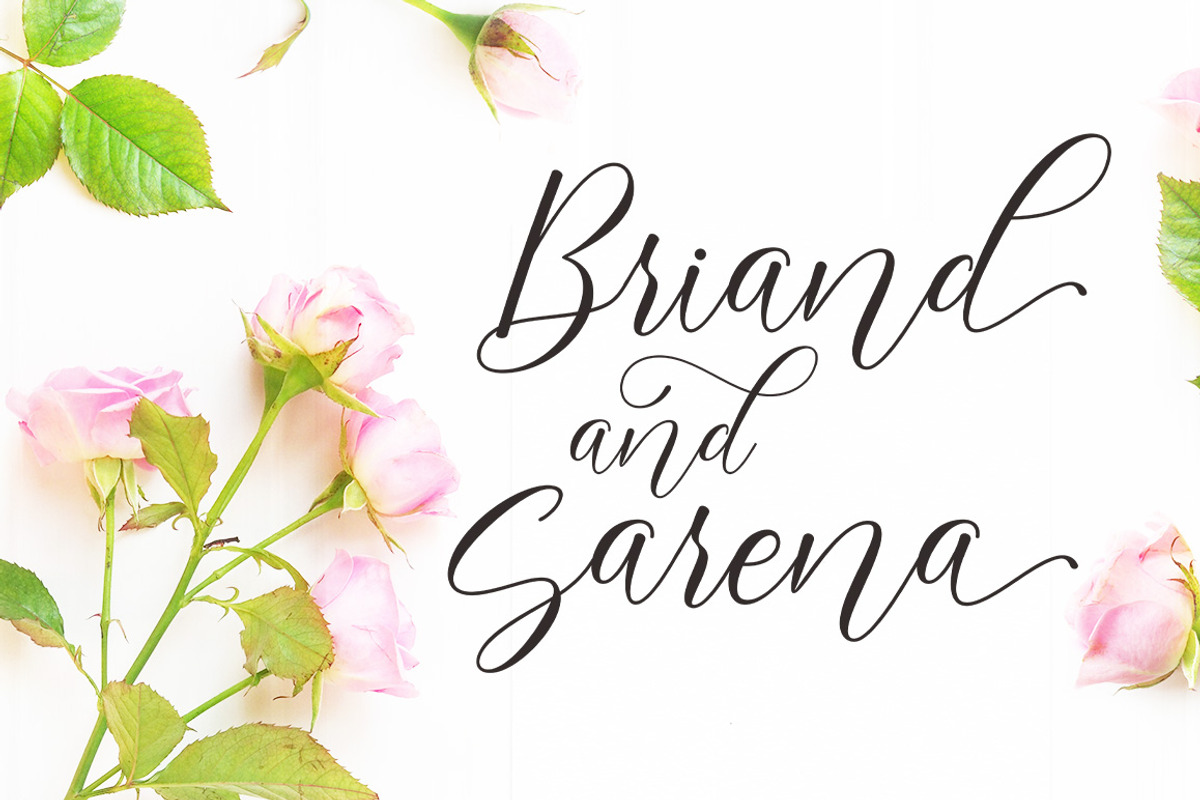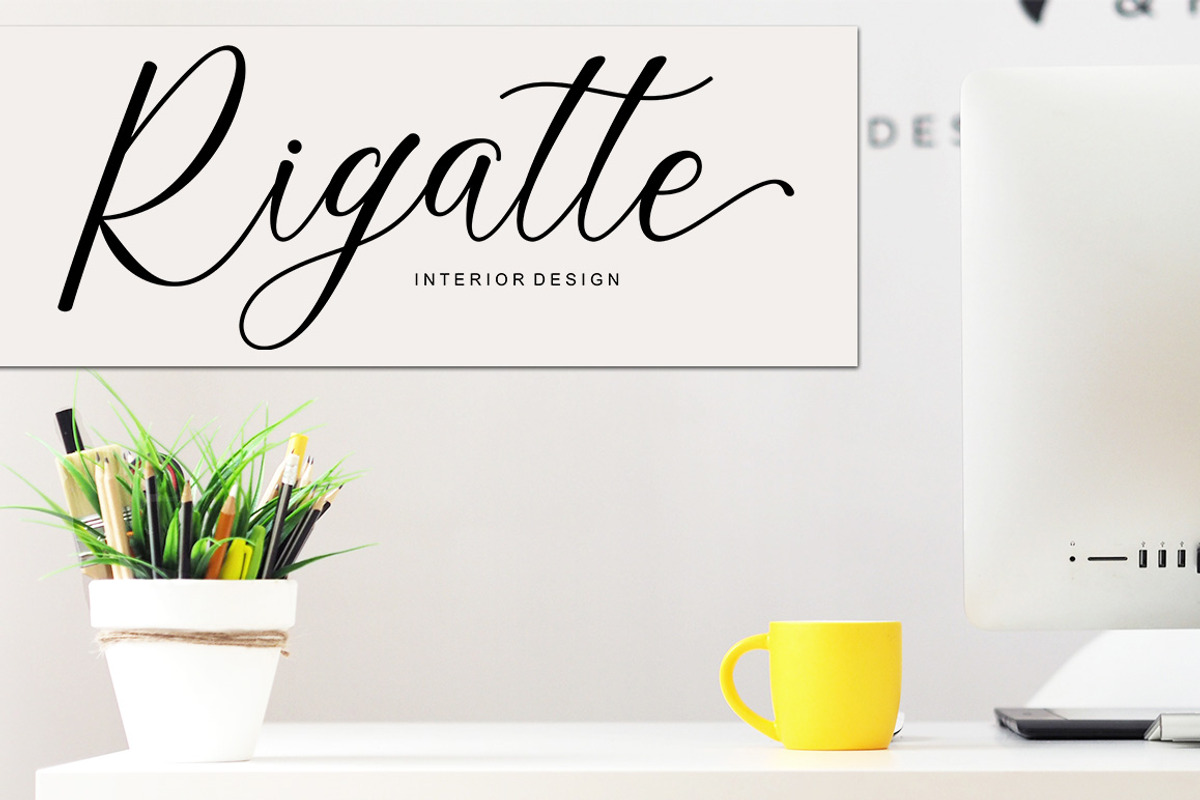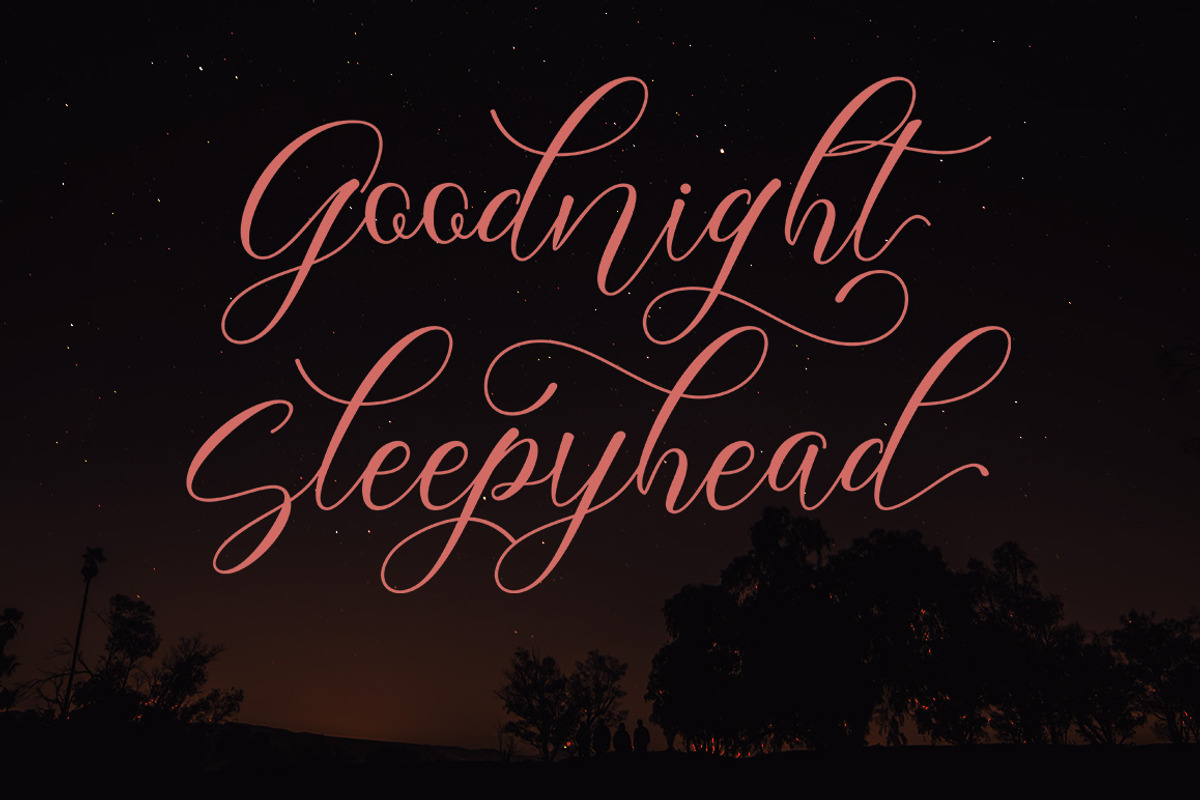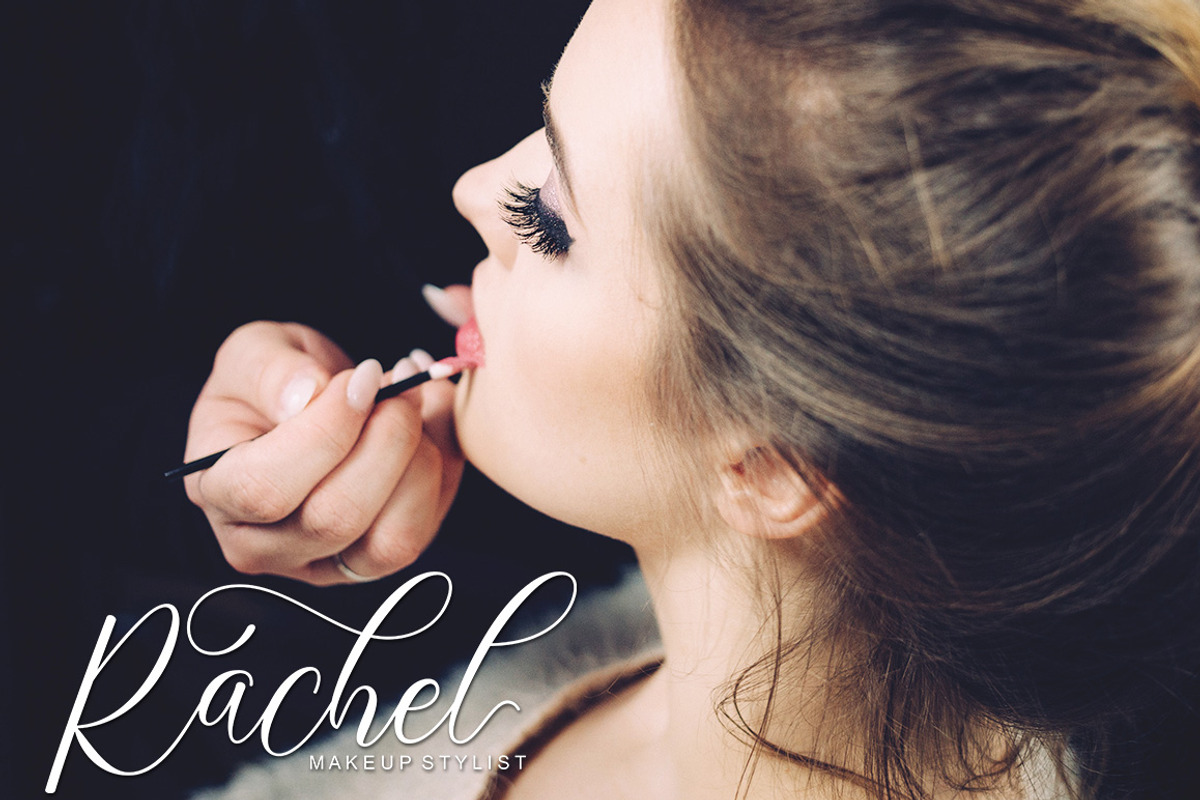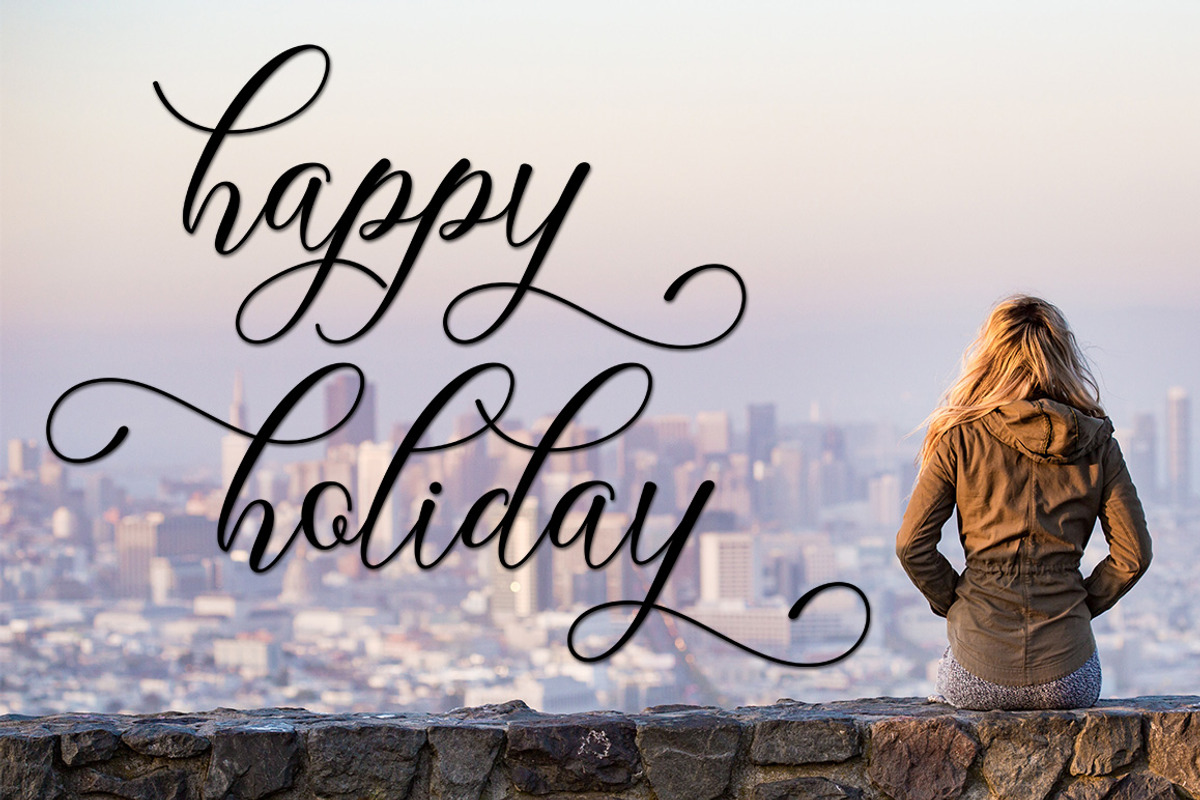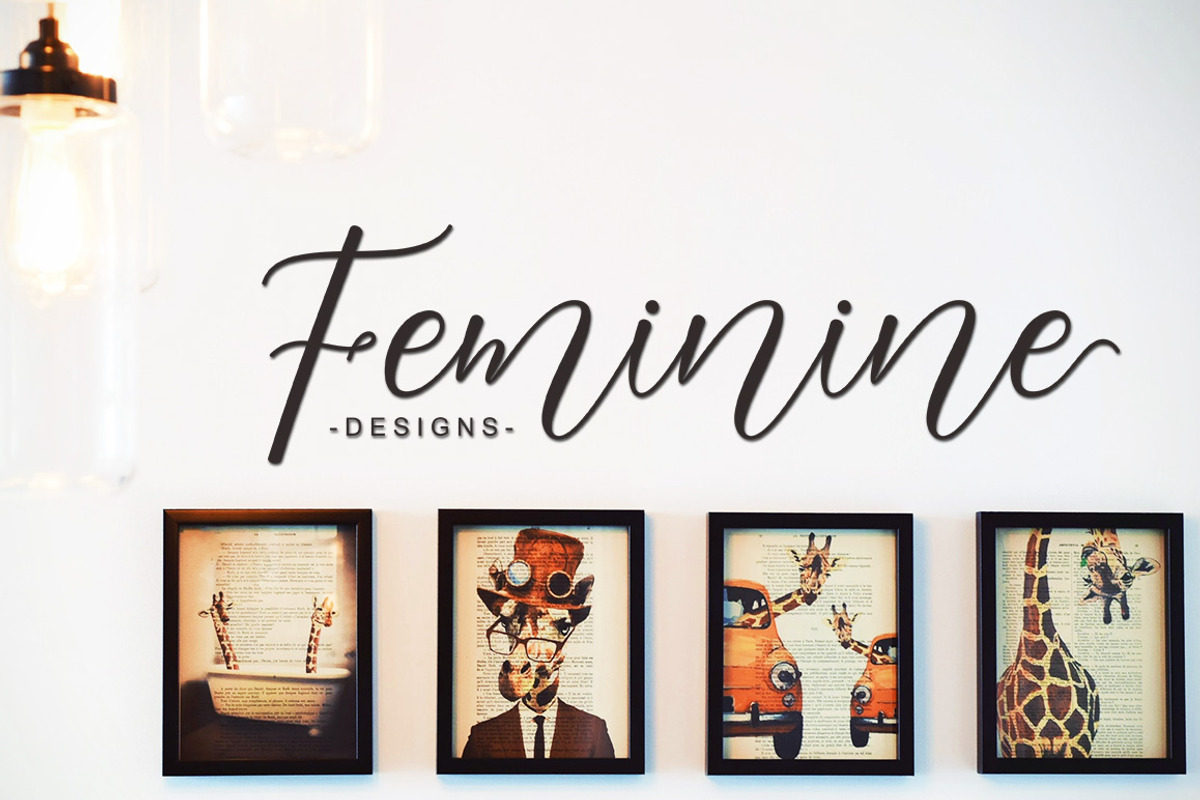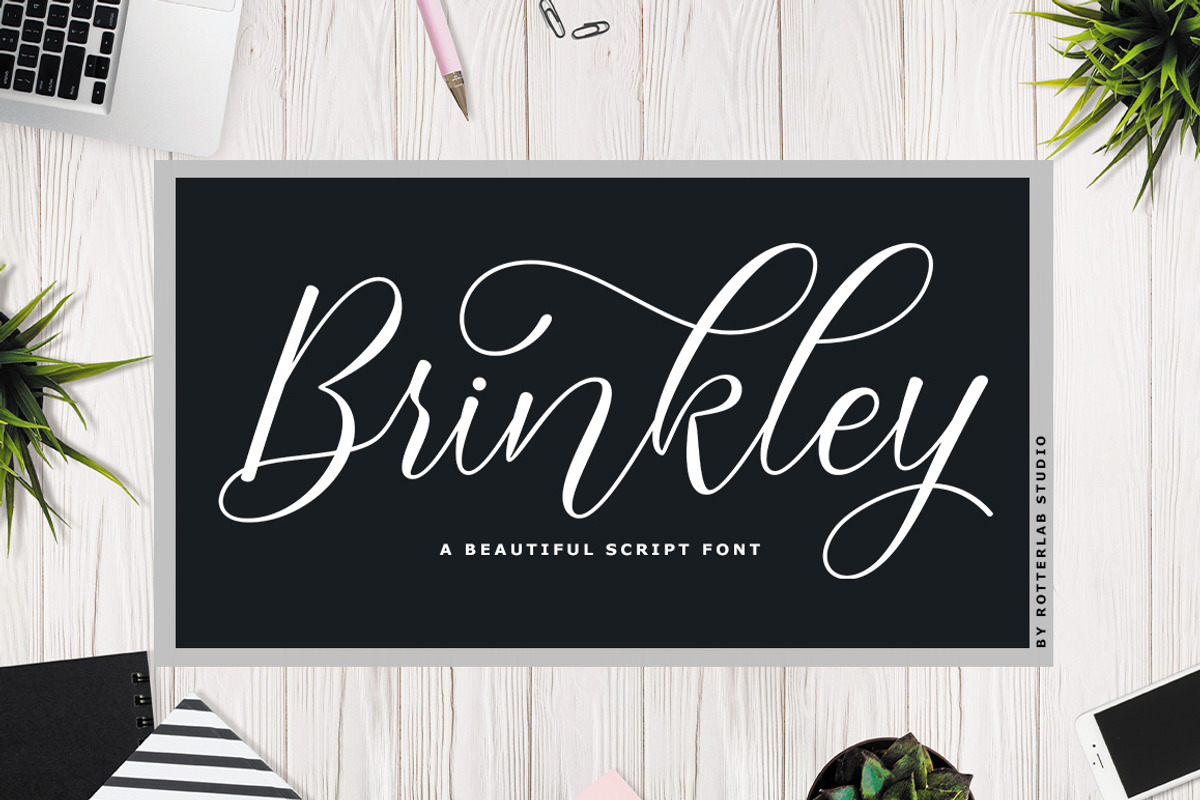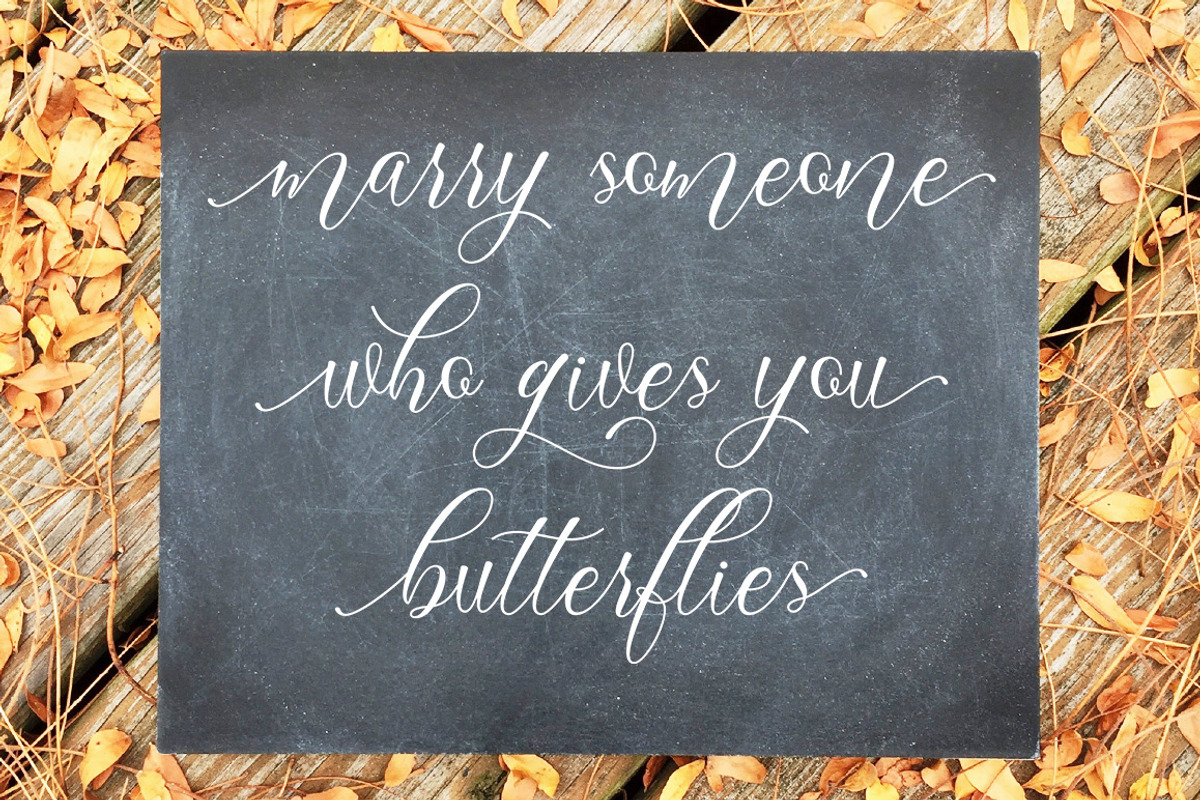
Brinkley
Brinkley Script: A fresh handwritten font, luxurious and elegant with a dancing baseline. perfect for Branding, Logos, Greeting Cards, Wedding Stationery, Quotes etc.